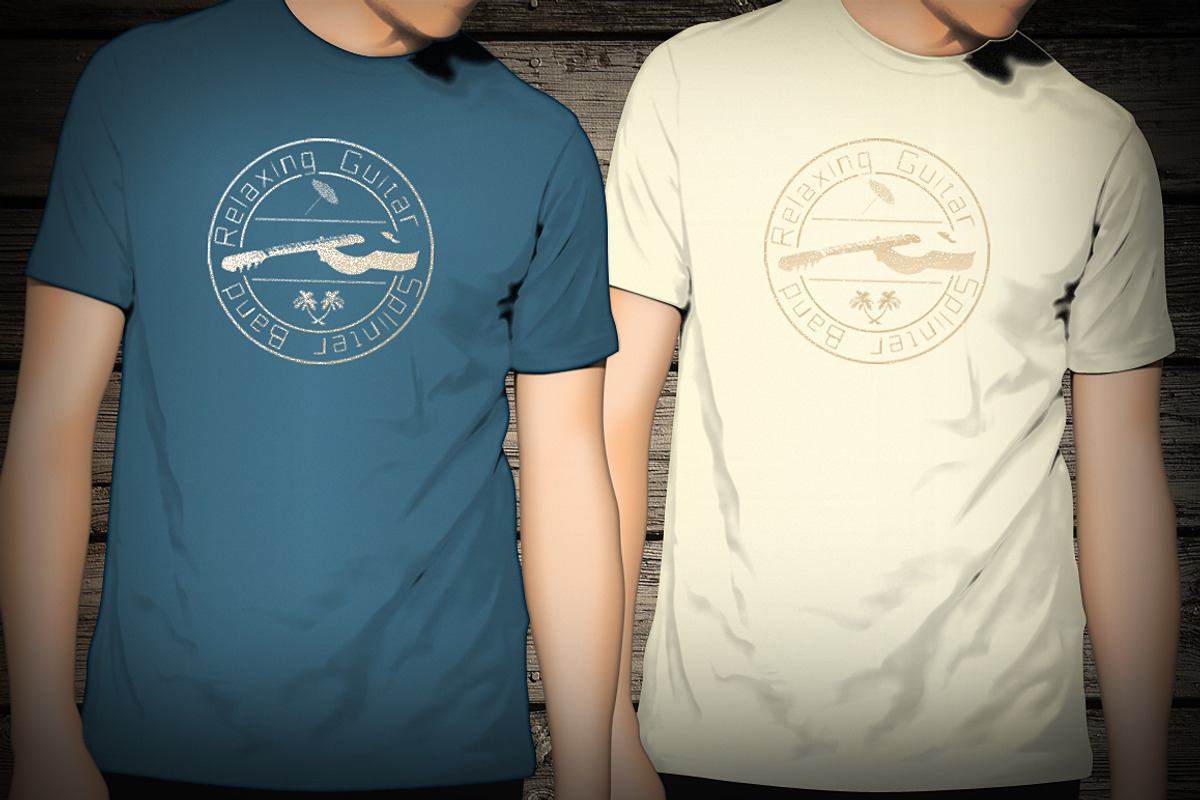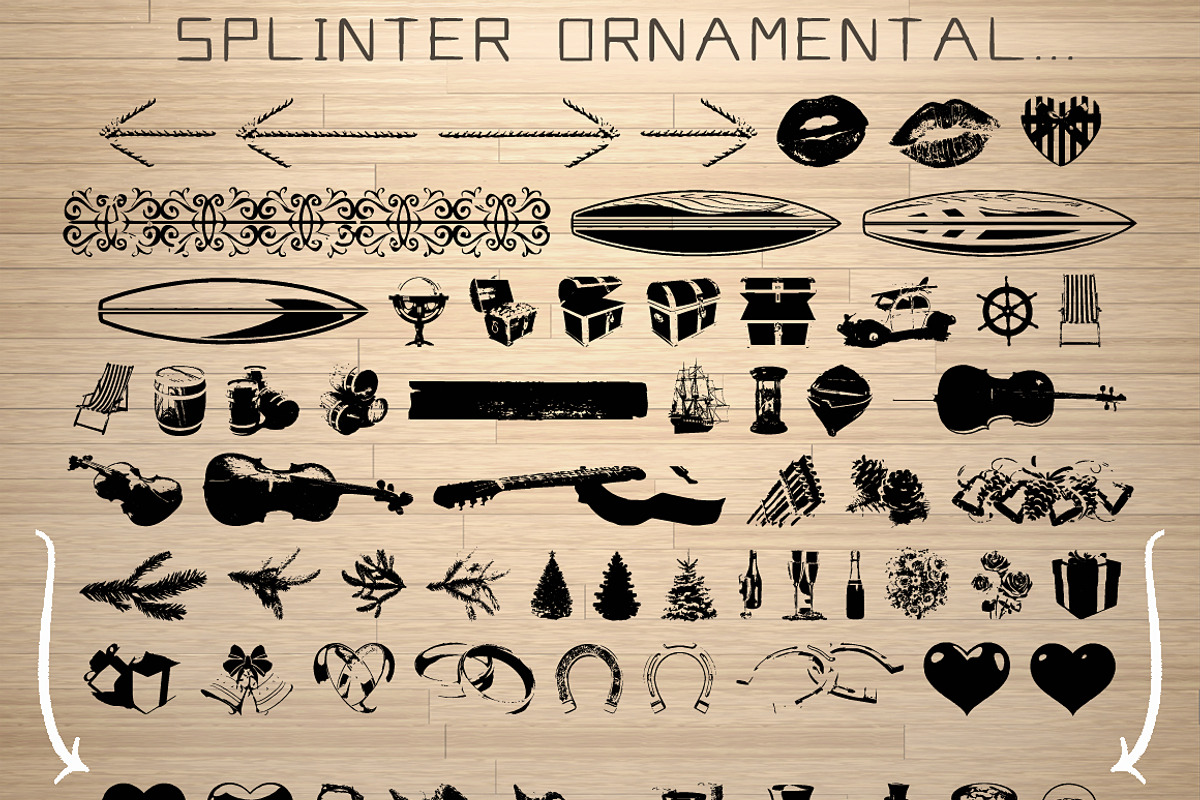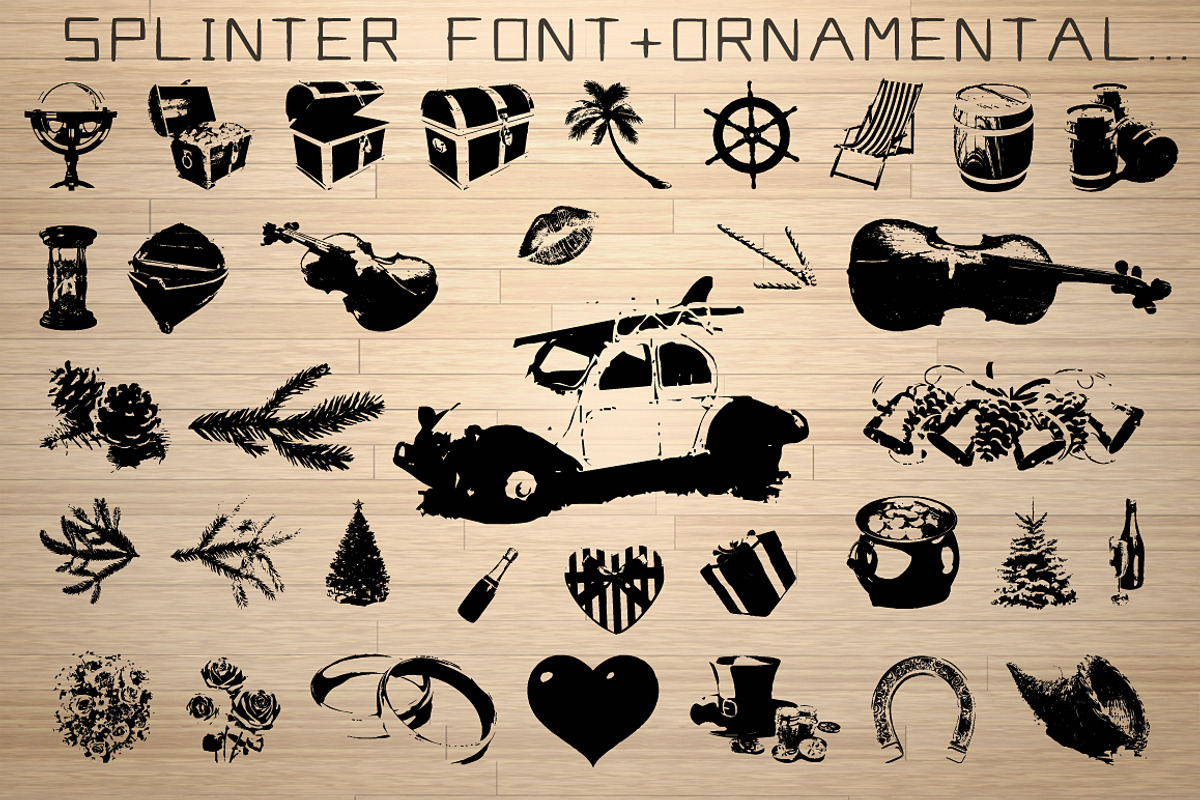
Splinter Font plus Ornamental icons
Splinter Font plus Ornamental icons by tmcom is a font selected for branding, posters, packaging, typography.
- This pack contains a full font set and 70 stylish Retro icons, which are leaning towards splinters/wood; but l have thrown a few random ones
Why Splinter Font plus Ornamental icons is worth a look
Splinter Font plus Ornamental icons by tmcom fits naturally into Branding, posters, packaging, typography.